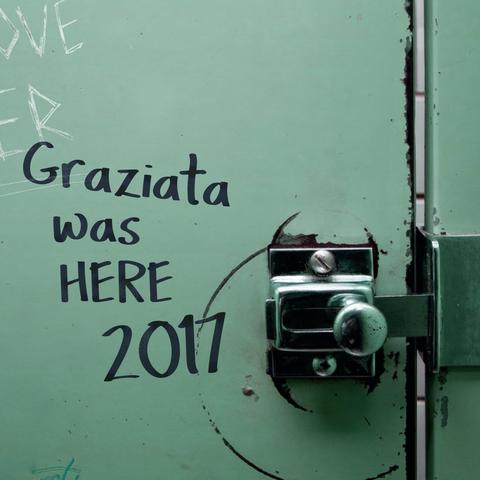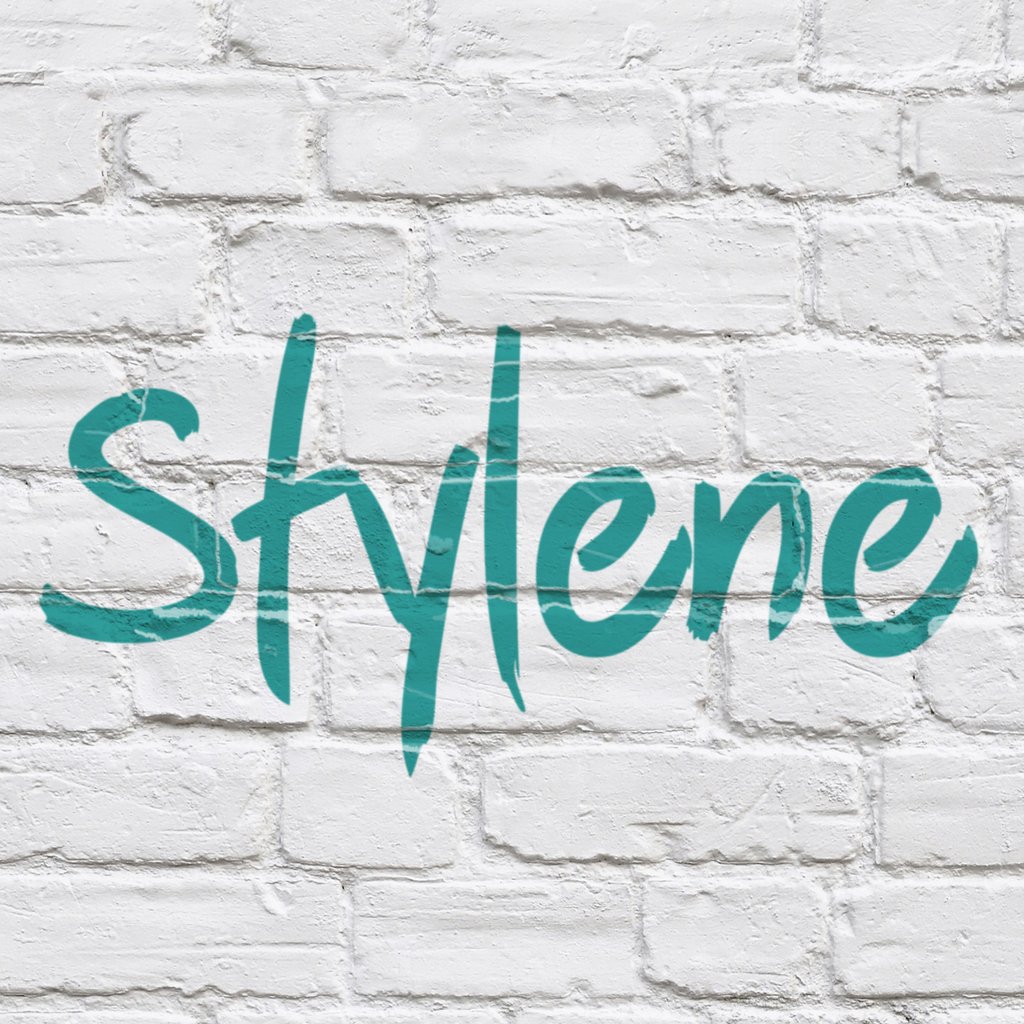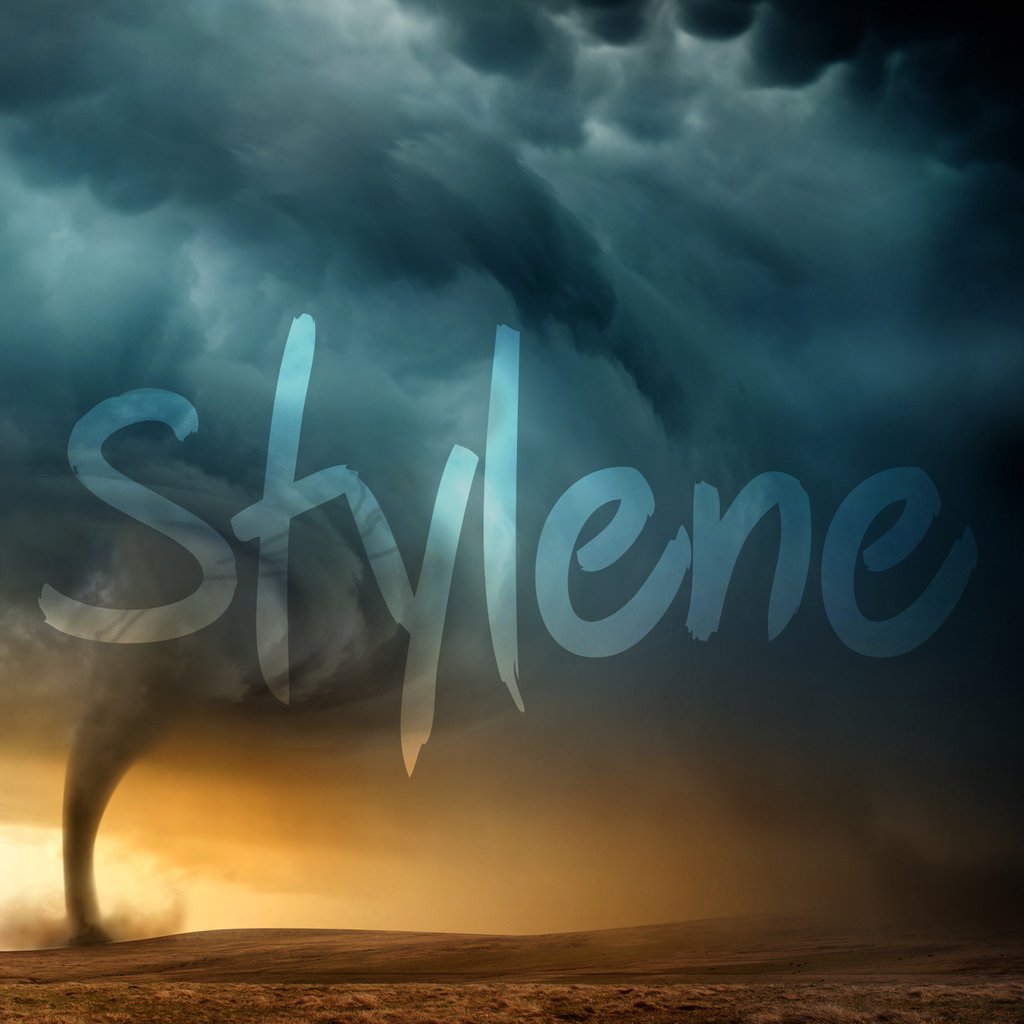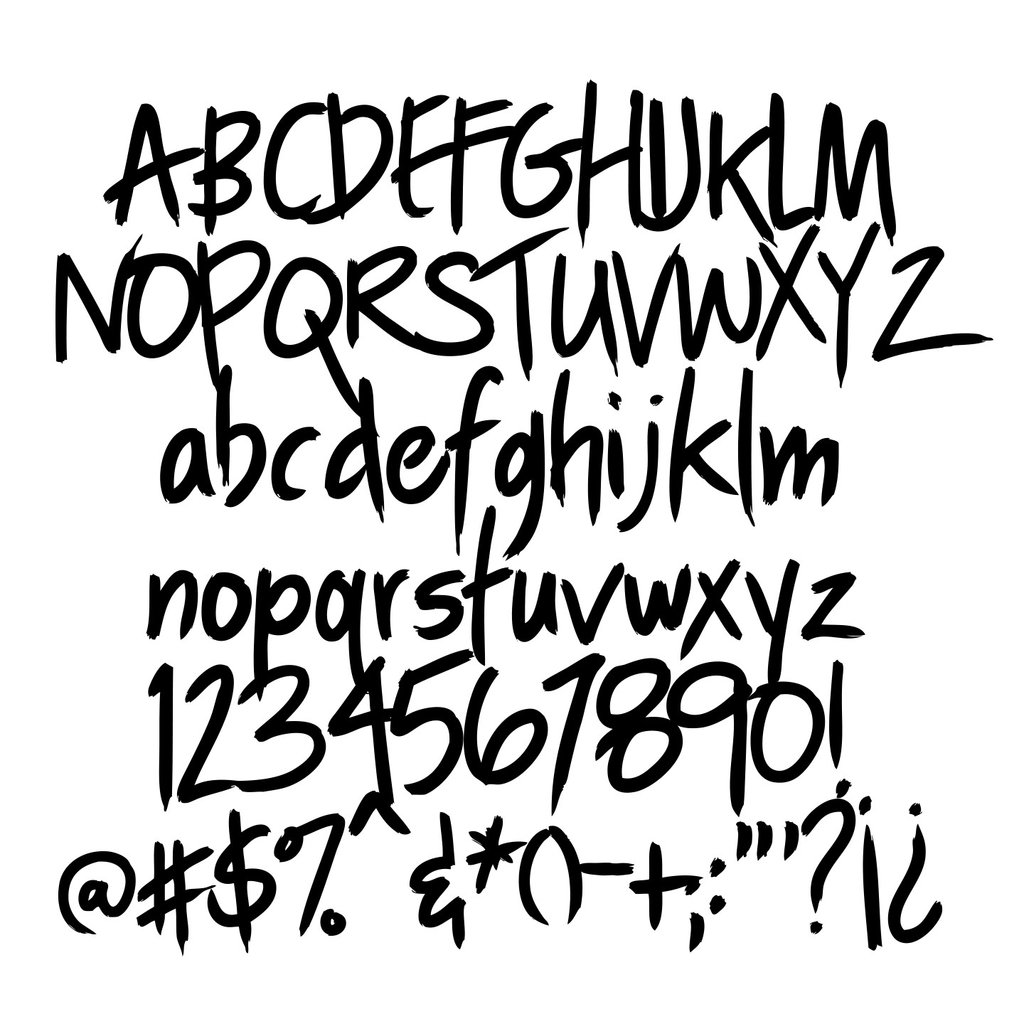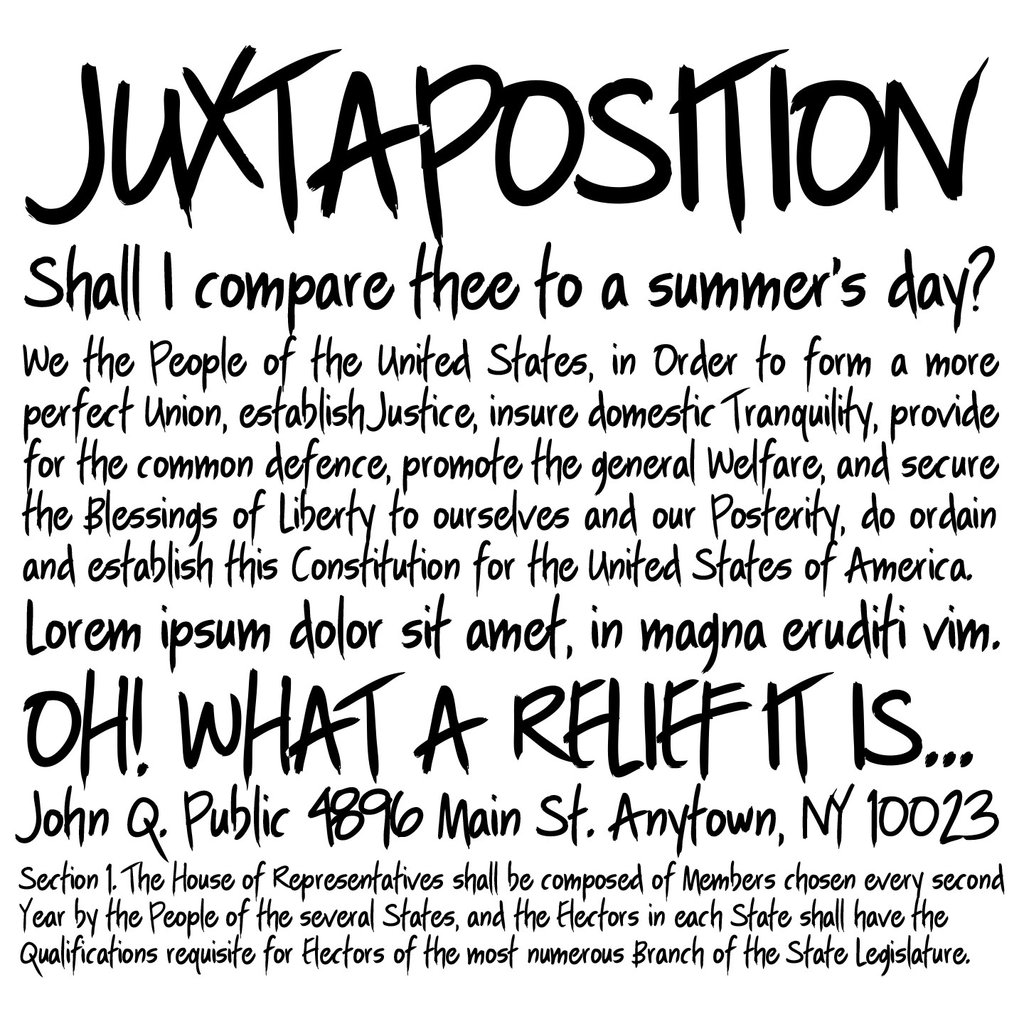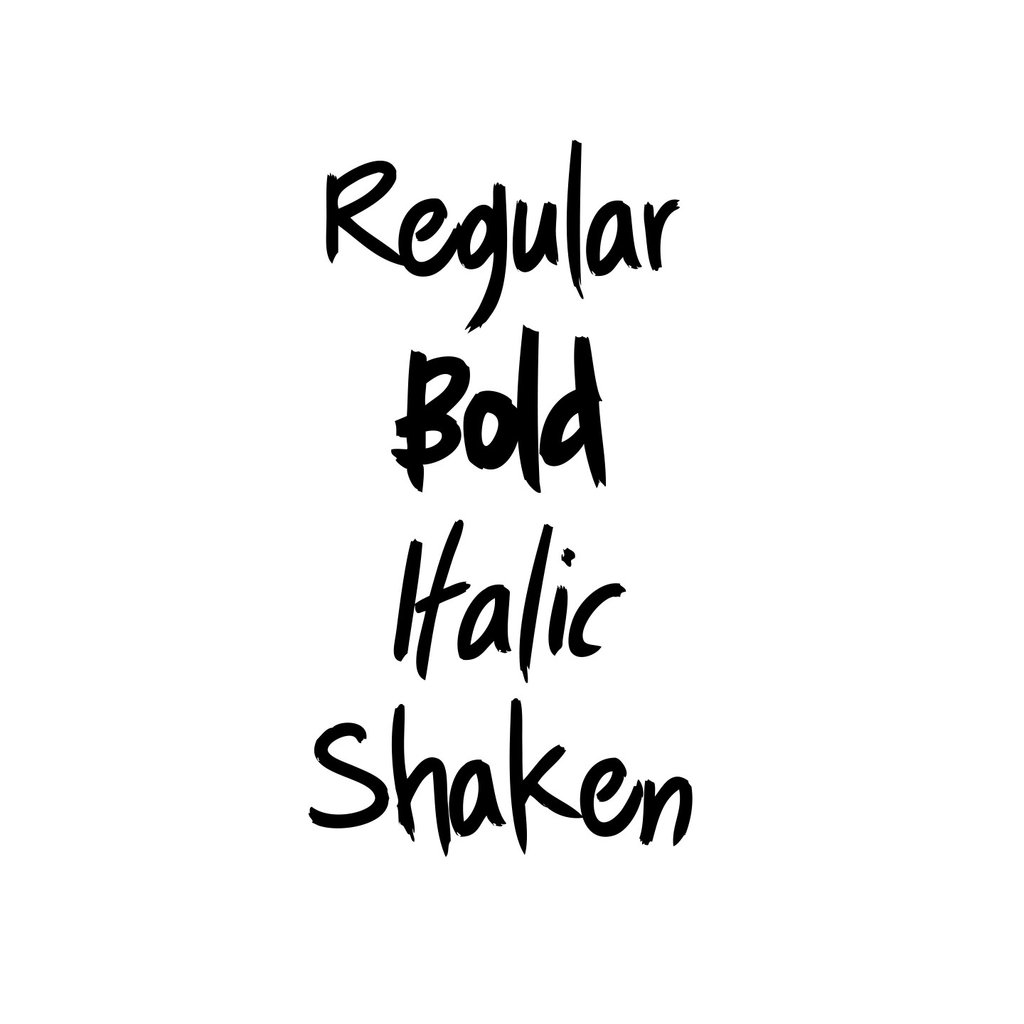
Stylene Font Family
A bit manic, a bit messy, the Stylene family is designed to be a little offbeat--perhaps the frenzied scrawl of an eccentric's brainstorm or the voice of a secret journal's disturbing confessions. The brushed and sometimes drippy characters bounce along the baseline and have the varied slant of natural, quick handwriting. The Shaken face exaggerates and randomizes slant and bounce.
Because of its tight kerning, intentional variance, and realistic hand-written appearance, Stylene is ideal for display titles and short copy. For a custom-lettering look, combine the faces across text.